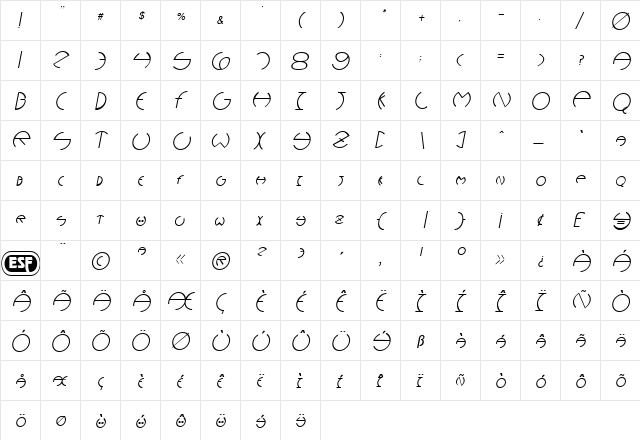
Narcosis Oblique Font Preview
Narcosis Oblique
Narcosis Oblique Font Details
| Style | Oblique |
Design Context for Narcosis Typeface
Narcosis is a composed and adaptable typeface that performs quietly and consistently across a wide range of design contexts. Its italic angle brings a sense of urgency and motion to the letterforms.